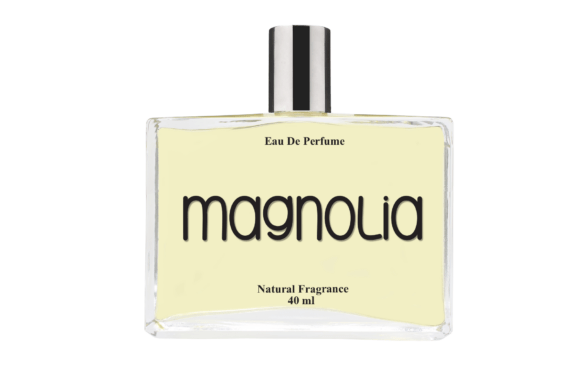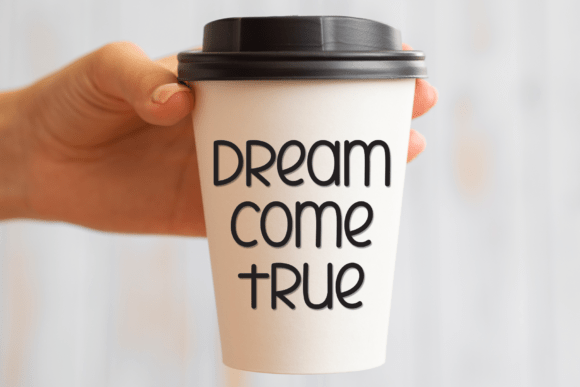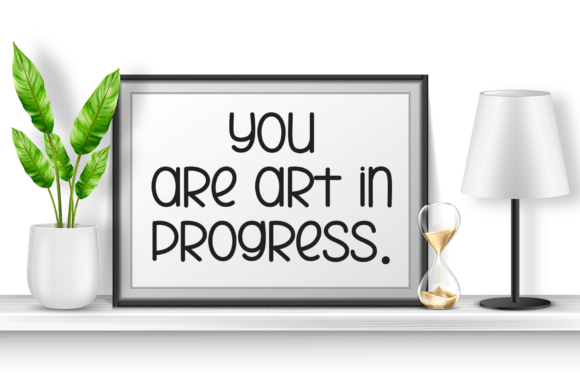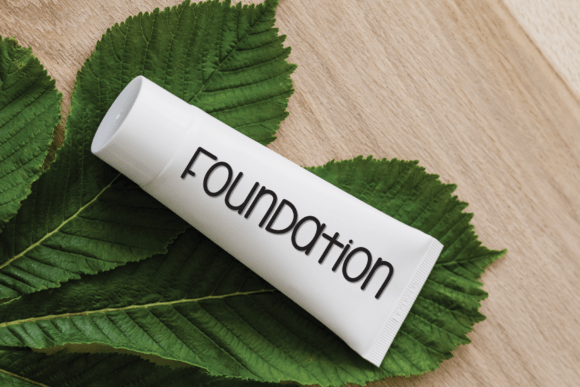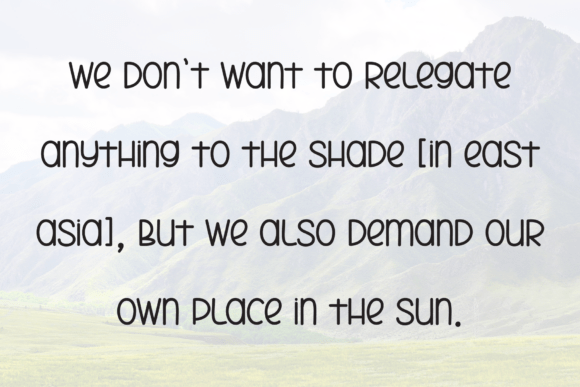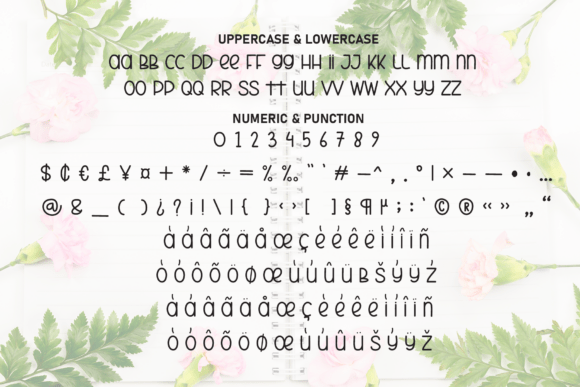
Introducing Book Spring Font: Elevate Your Designs with Elegant Typography
Are you a designer, crafter, or DIY enthusiast looking for a unique and creative way to add a personal touch to your projects? Look no further than Book Spring Font, a beautifully crafted typeface designed to take your designs to the next level. With its elegant and tasteful handwriting style, this font is perfect for a wide range of applications, from wall displays and wedding invitations to social media posts, logos, advertisements, and more.
What Makes Book Spring Font Special?
Our font is carefully crafted to provide a distinctive and sophisticated look that will set your designs apart from the rest. Here are just a few reasons why Book Spring Font is a must-have for any designer or crafter:
• Latest Style Letters: Our font features the latest style letters that are perfect for adding a touch of elegance and sophistication to your designs.
• Versatile: Book Spring Font is perfect for a wide range of applications, including wall displays, wedding invitations, social media posts, logos, advertisements, product packaging, product designs, labels, photography, watermarks, invitations, stationery, and any project that requires tasteful handwriting.
Why Choose Book Spring Font?
With so many fonts available, why choose Book Spring Font? Here are just a few reasons:
• Unique and Creative: Our font is carefully crafted to provide a distinctive and sophisticated look that will set your designs apart from the rest.
• Elegant and Tasteful: Book Spring Font features an elegant and tasteful handwriting style that is perfect for a wide range of applications.
• High-Quality: Our font is of the highest quality, ensuring that it will look great in any design.